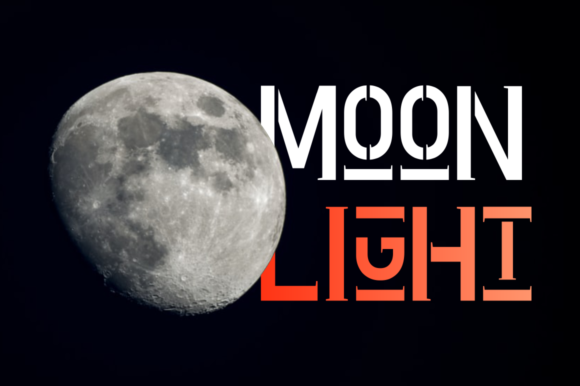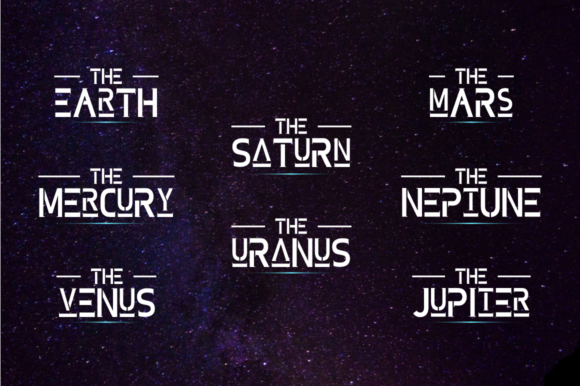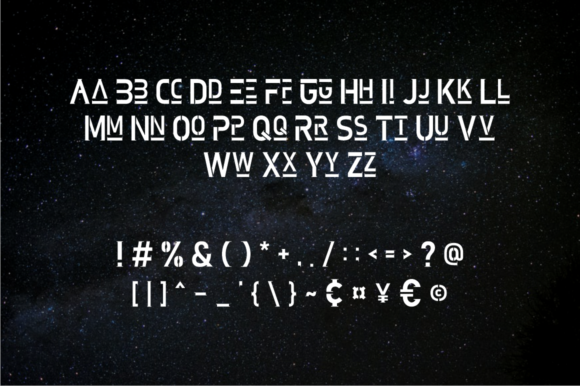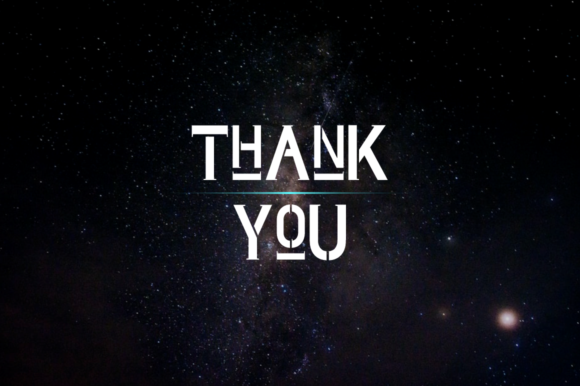
Introduction to Gobern Font
Have you ever stared at a blank canvas, feeling like the perfect font is just out of reach? You envision a bold, eye-catching display that elevates your creative project to new heights, but nothing seems quite right. That’s where the Gobern Font comes in – a game-changing design resource that’s about to revolutionize the way you approach your next big idea.
With its transparent background and high-quality design, the Gobern Font is the perfect addition to any creative project. Whether you’re working on a logo, poster, or social media campaign, this font is sure to make your work stand out from the crowd. And the best part? It’s available for a free download, making it an accessible and valuable resource for designers of all levels.
So why settle for a generic font when you can have a bold and authentic display that truly reflects your unique style? Discover the power of the Gobern Font and take your creative ideas to the next level.
Key Features of Gobern Font
- High-quality design resource with a transparent background, ideal for creative projects
- Unique, modern design with a sleek and sophisticated feel
- Supports a wide range of languages, making it a versatile design resource
- Available in a single weight, perfect for creating a cohesive look in your design
- High-resolution design, suitable for use in print and digital applications
- Perfect for designers, artists, and creatives looking for a high-quality design resource
Honest Review: Gobern Font
I recently had the chance to try out the Gobern Font, and I must say it’s a solid addition to any designer’s toolkit. ✨ One of the standout features is its high quality, clean design that makes it perfect for creative projects requiring a professional touch.
- Easy to read even at small font sizes
- Works well in both print and digital formats
- Features a transparent background, giving you the flexibility to overlay it on any image or color
While the Gobern Font is a great choice for many designers, there are a few limitations to consider. ⚠️ For one, the font family is relatively small, so it may not be the best option for projects requiring a wide range of font styles.
Overall, I’d say the Gobern Font is a worthwhile addition to any designer’s library. Its high quality design, versatility, and free download make it a great resource for any creative project. Whether you’re working on a logo, brochure, or website, the Gobern Font is definitely worth checking out.
Gobern Font
The Gobern Font is a high-quality design resource ideal for creative projects. It offers a transparent background, making it easy to customize and integrate into various design platforms.
Tips for Getting the Most Out of Gobern Font
For optimal results, use Gobern Font in conjunction with other high-quality design resources. Experiment with different font sizes, colors, and transparency levels to achieve the desired look.
The Gobern Font is suitable for various creative projects, including graphic design, digital art, and web design. It’s also a great resource for creating social media graphics, presentations, and documents.